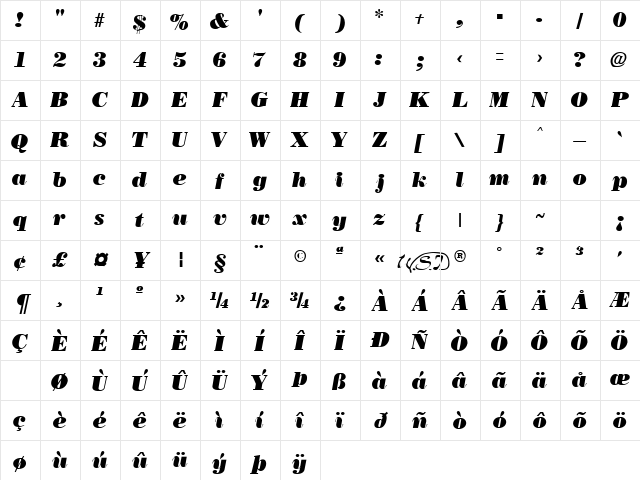
Boston Black Italic
Design Context for Boston Black Typeface
Boston Black is a composed and adaptable typeface that performs quietly and consistently across a wide range of design contexts. Its italic angle brings a sense of urgency and motion to the letterforms.
Pro Tip: Use Boston Black for emphasis, pull quotes, and subheadings where its slanted energy can add rhythm to the layout.